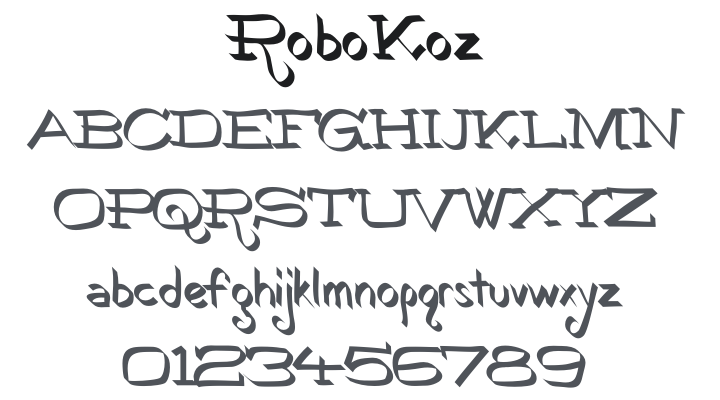
RoboKoz Font
About RoboKoz
Robokoz is a bold, East Asian-inspired calligraphic display typeface where Latin letterforms are reinterpreted through the lens of Japanese or Chinese brush writing — dramatic thick-thin stroke contrasts, sweeping angular cuts, and curling ink-like terminals give every character an expressive, hand-brushed energy. Perfect for martial arts branding, Asian-fusion restaurant signage, fantasy game titles, tattoo-inspired designs, and any headline needing exotic, brushstroke authority.